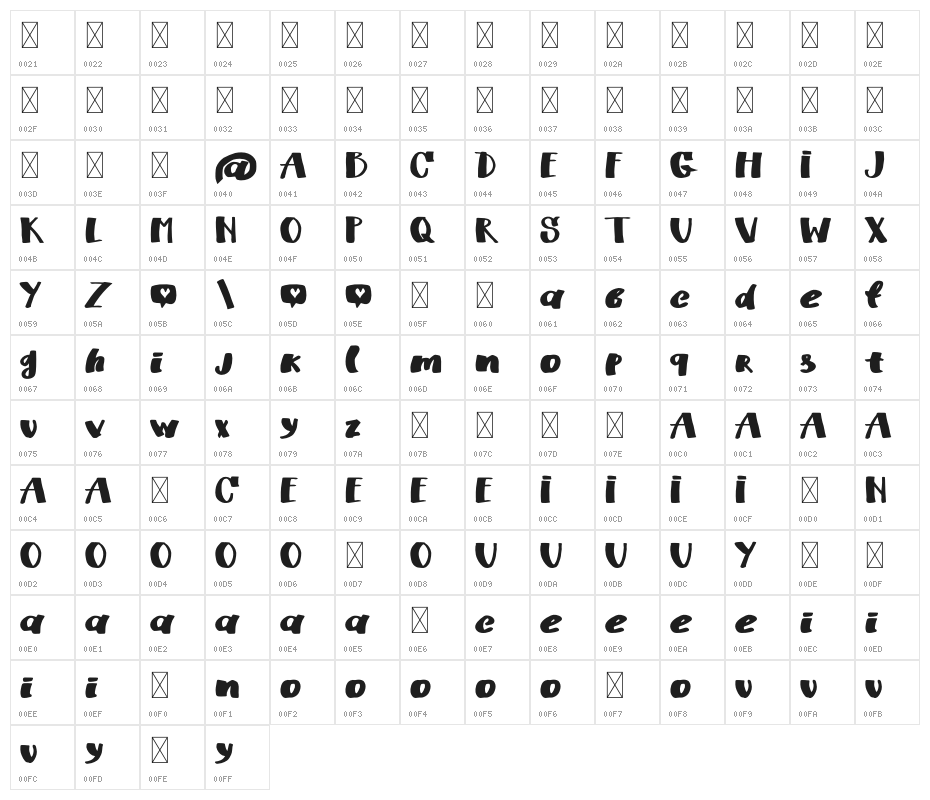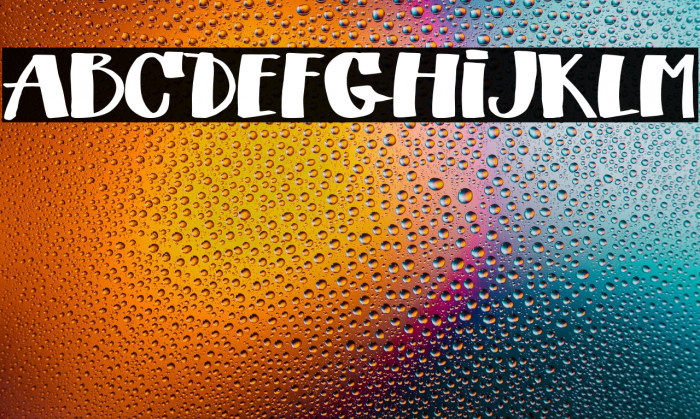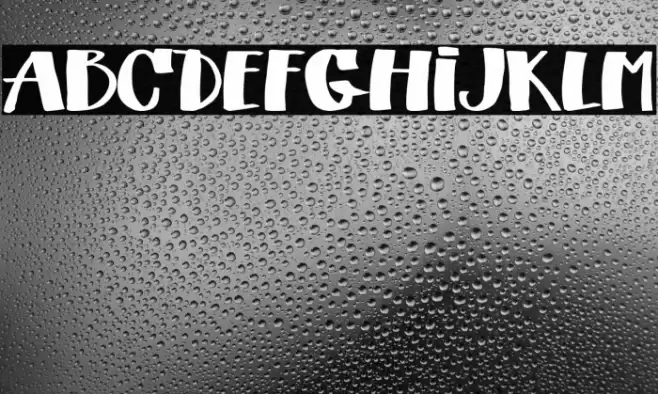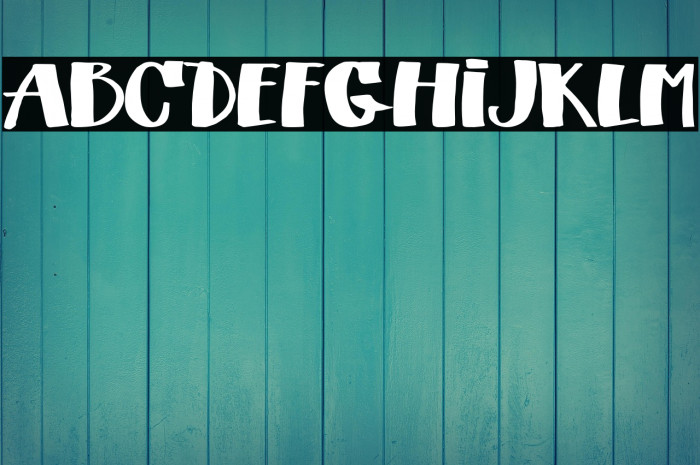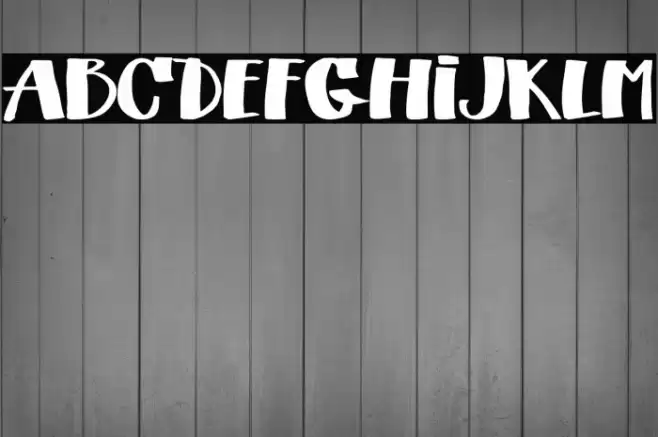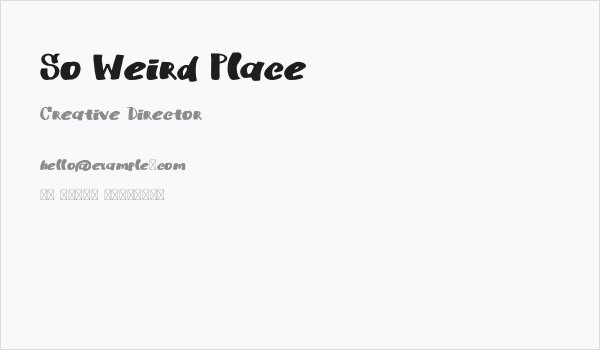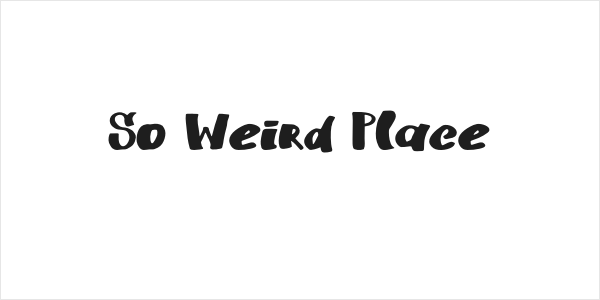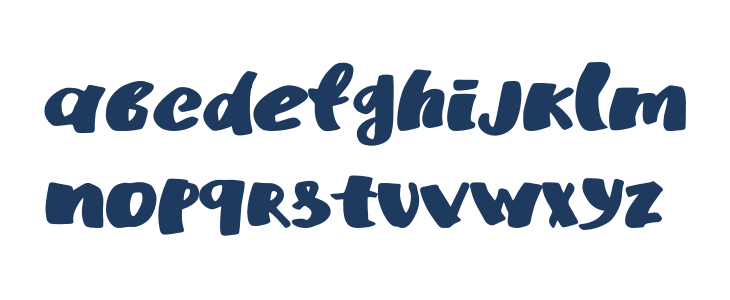
So Weird Place Font
So Weird Place Description
This font features a bold and expressive style, characterized by its thick, uneven strokes and playful, dynamic forms. The uppercase letters exhibit a strong presence with their varied angles and exaggerated curves, while the lowercase letters maintain a cohesive flow with a slightly more compact appearance. The font's overall design is reminiscent of hand-painted signage, offering a sense of spontaneity and artistic flair. Its unique character shapes and bold weight make it suitable for attention-grabbing headlines and creative projects. The font's whimsical nature is further emphasized by its irregular character spacing, which adds to its charm and individuality.
| Proposed Projects | Ideal for creative projects such as posters, branding, and packaging design where a bold, artistic touch is desired. |